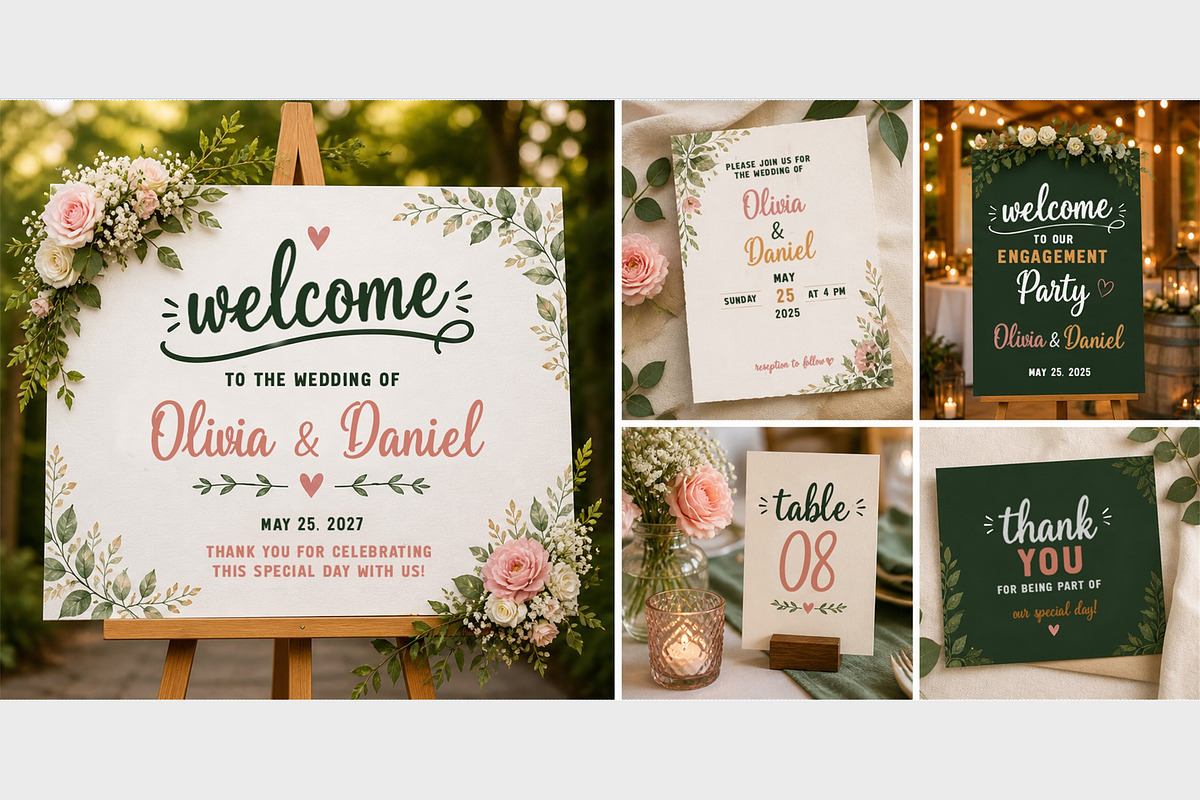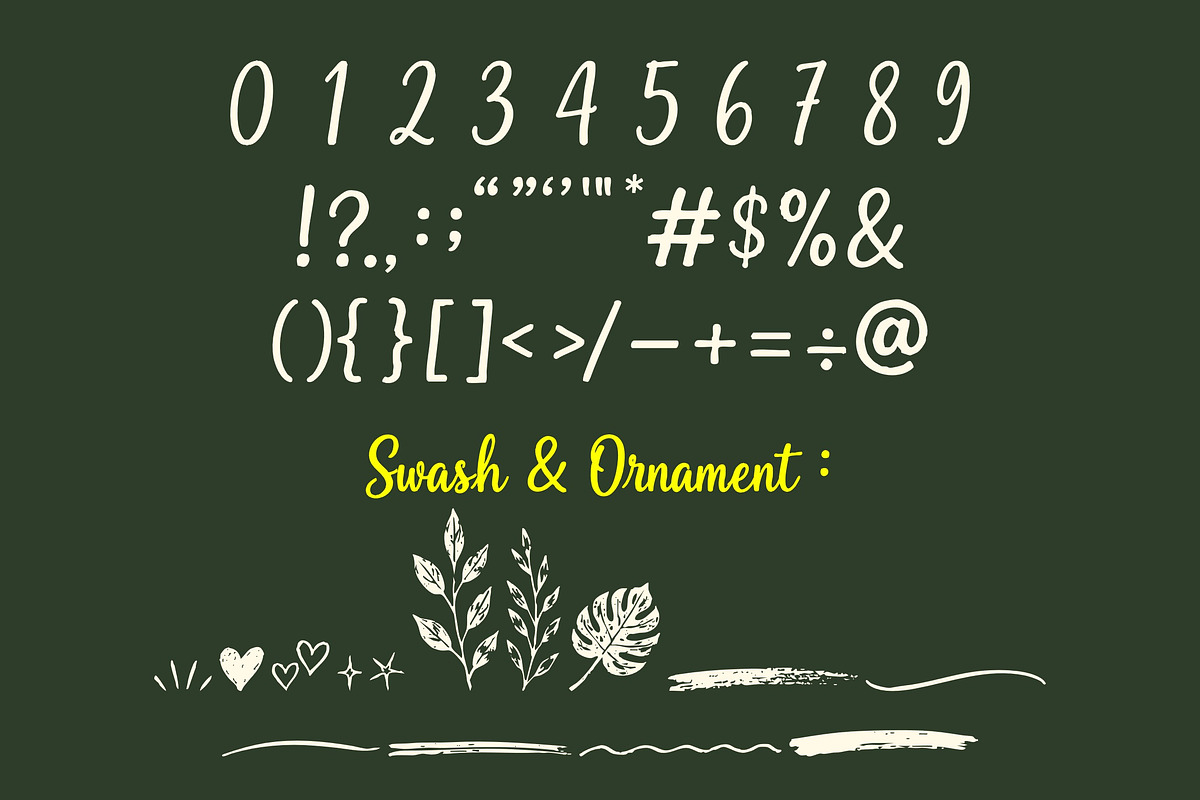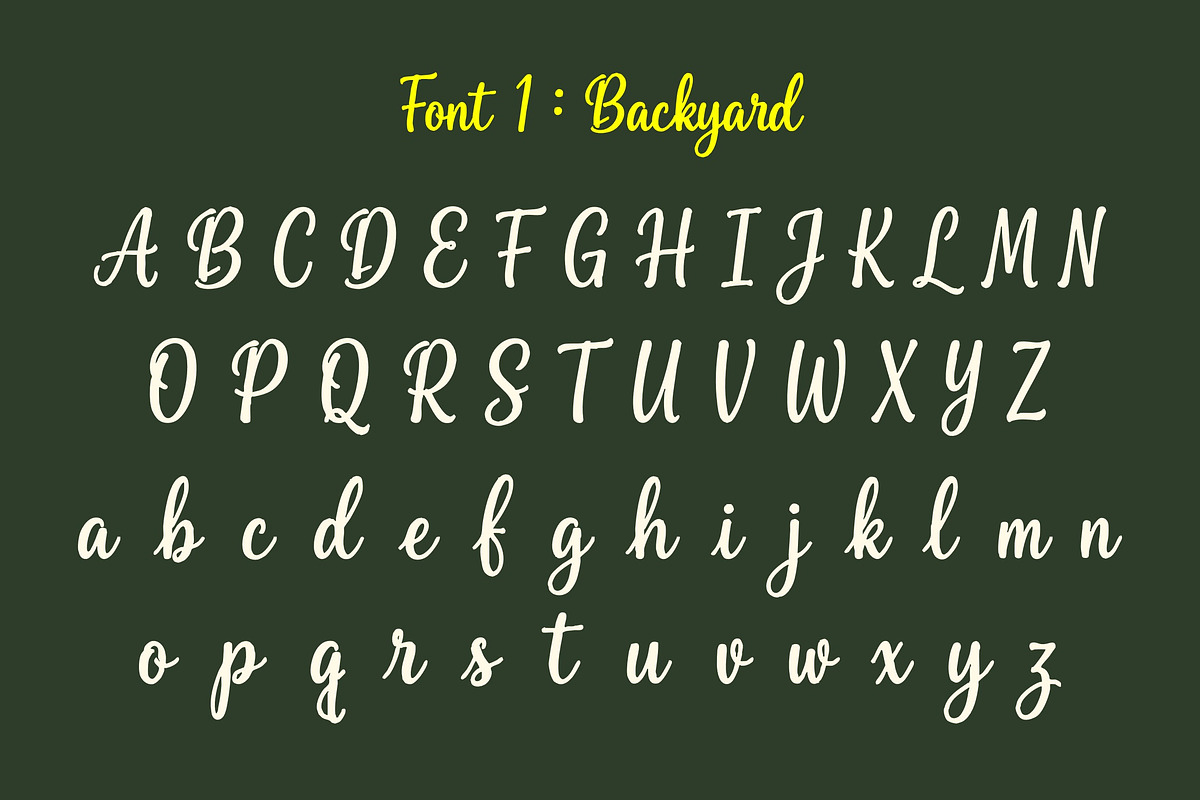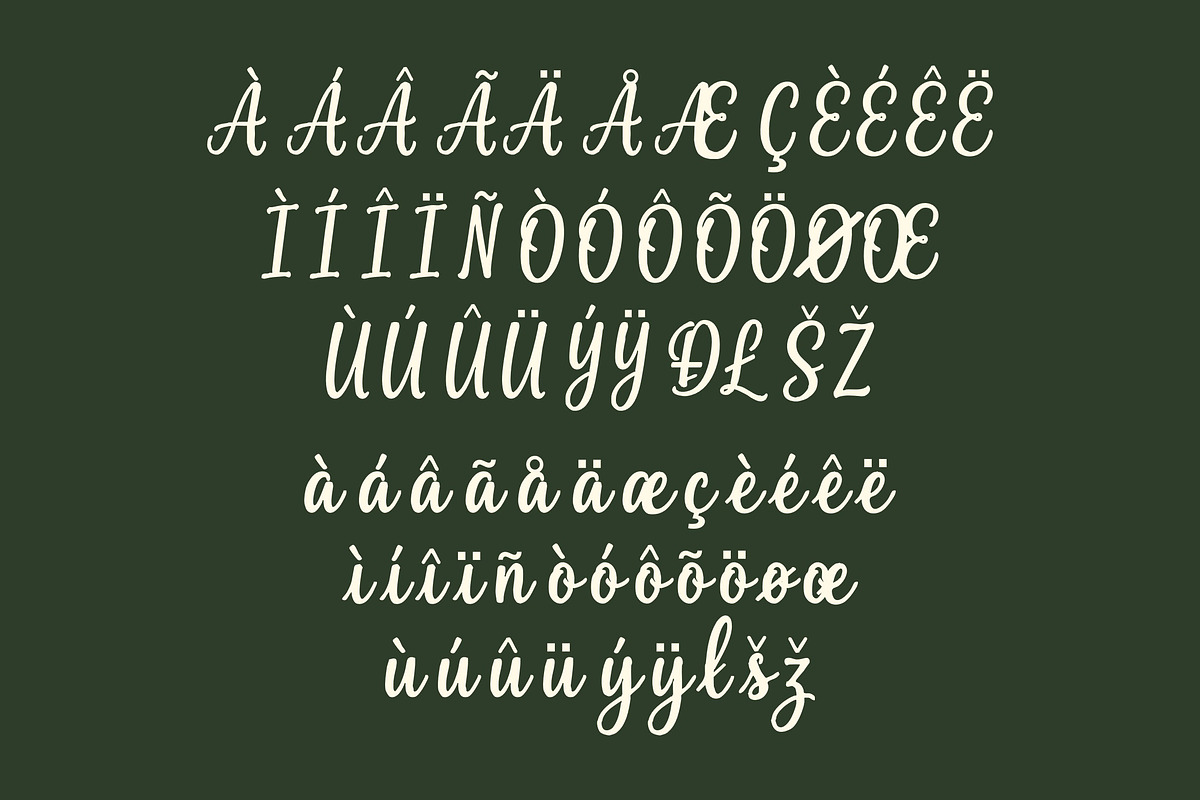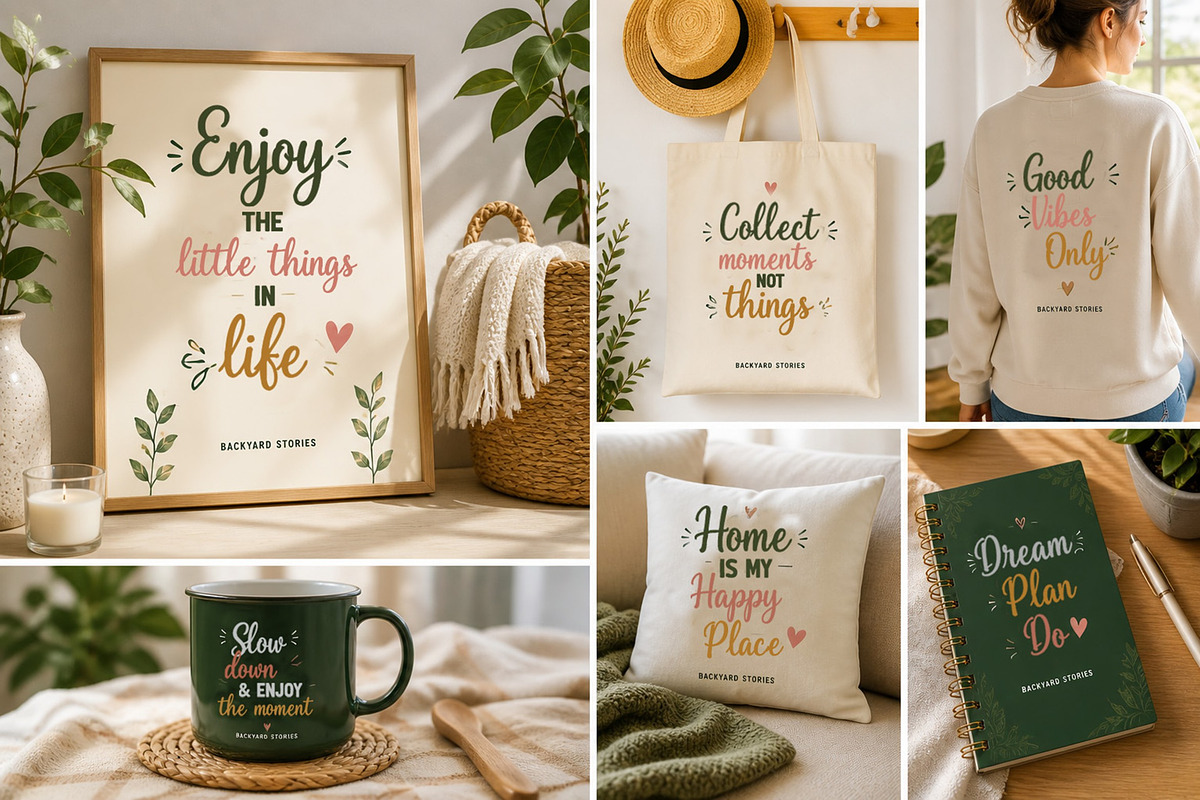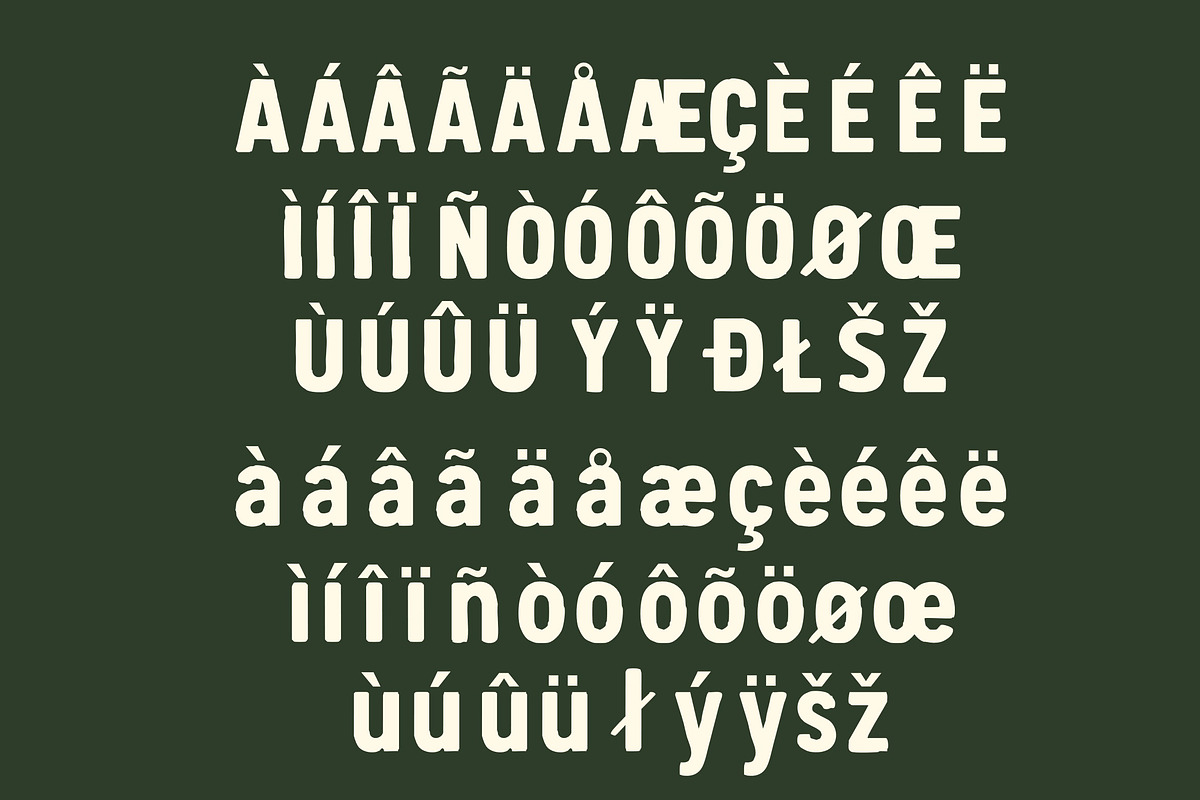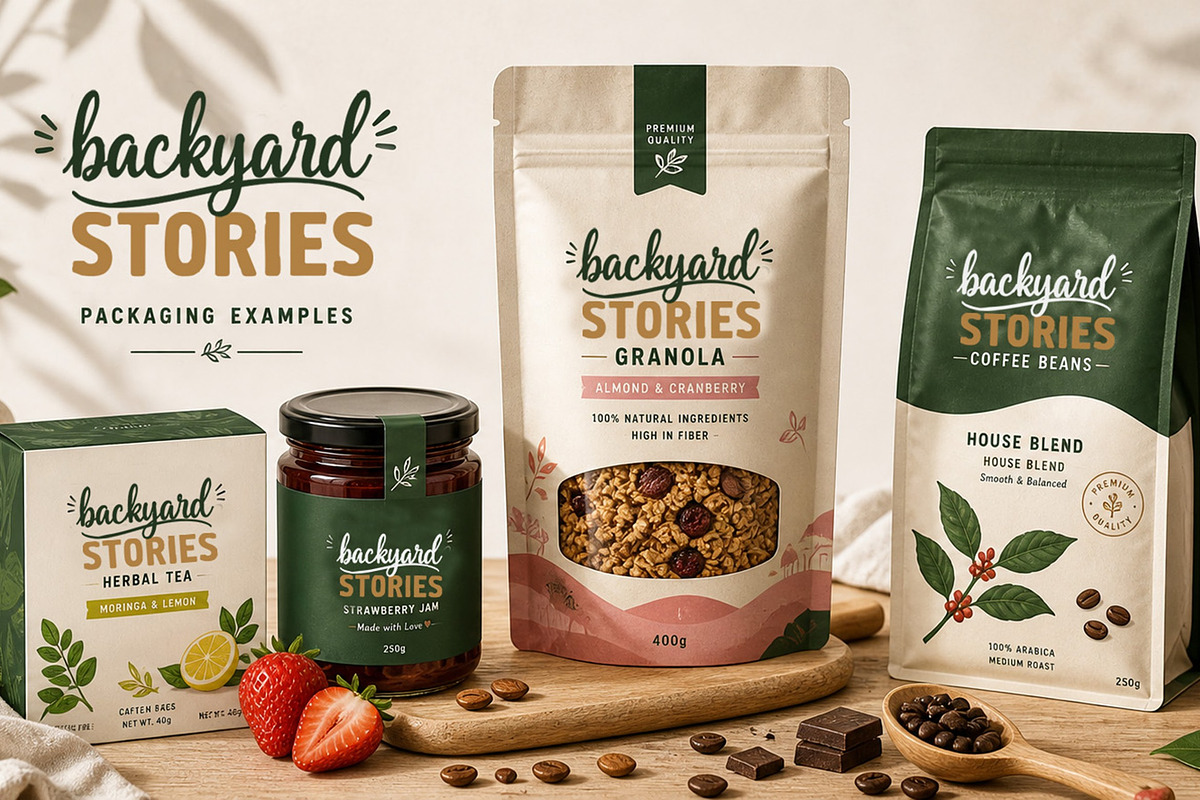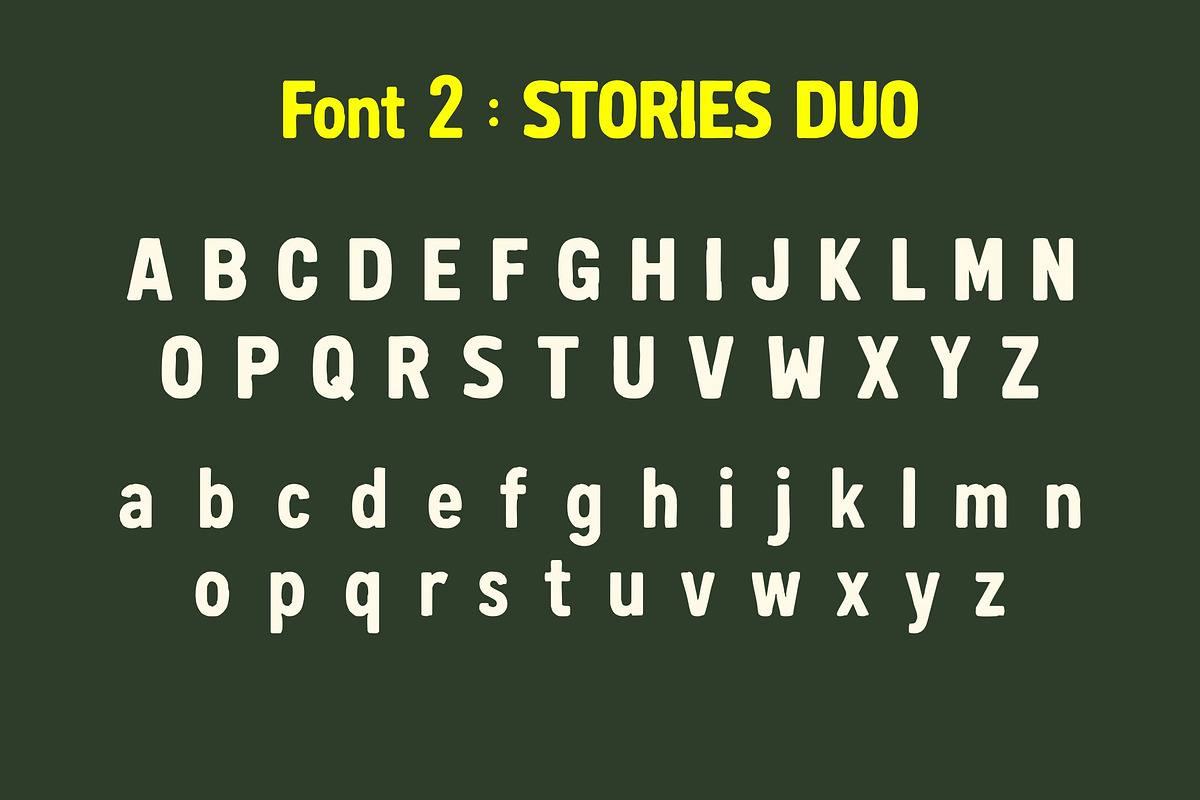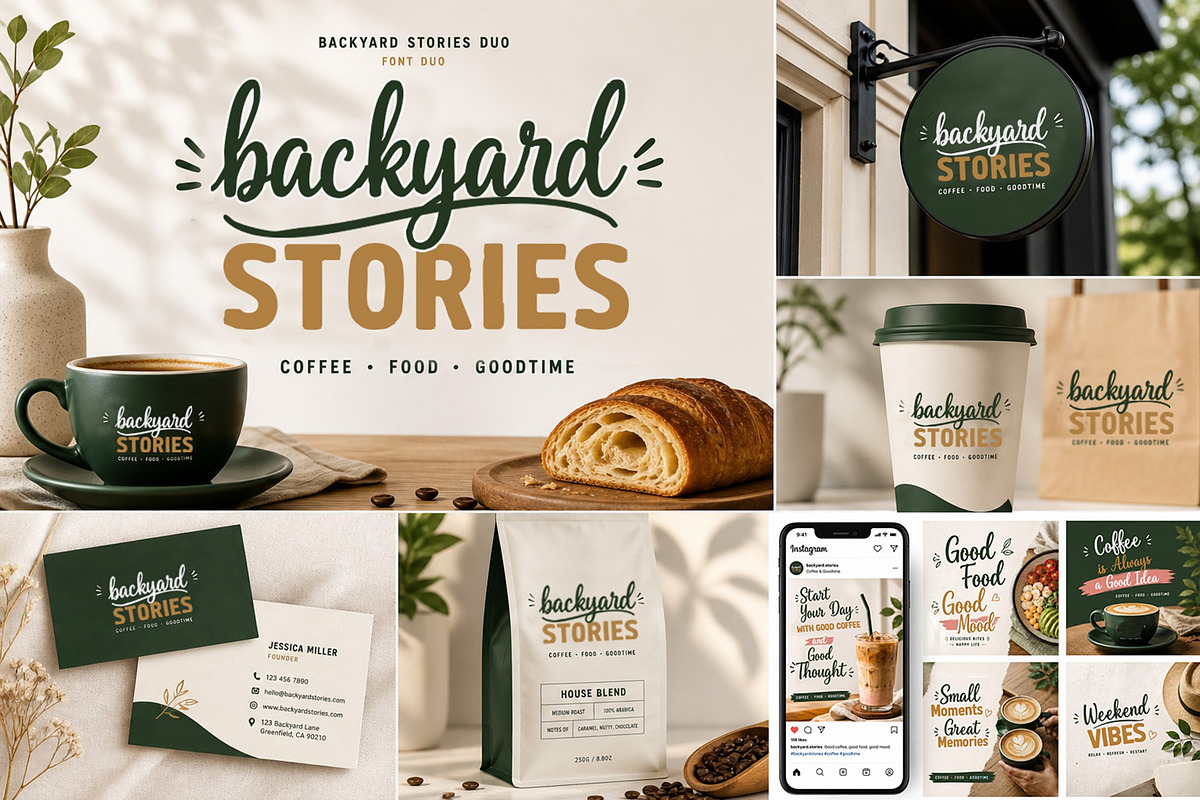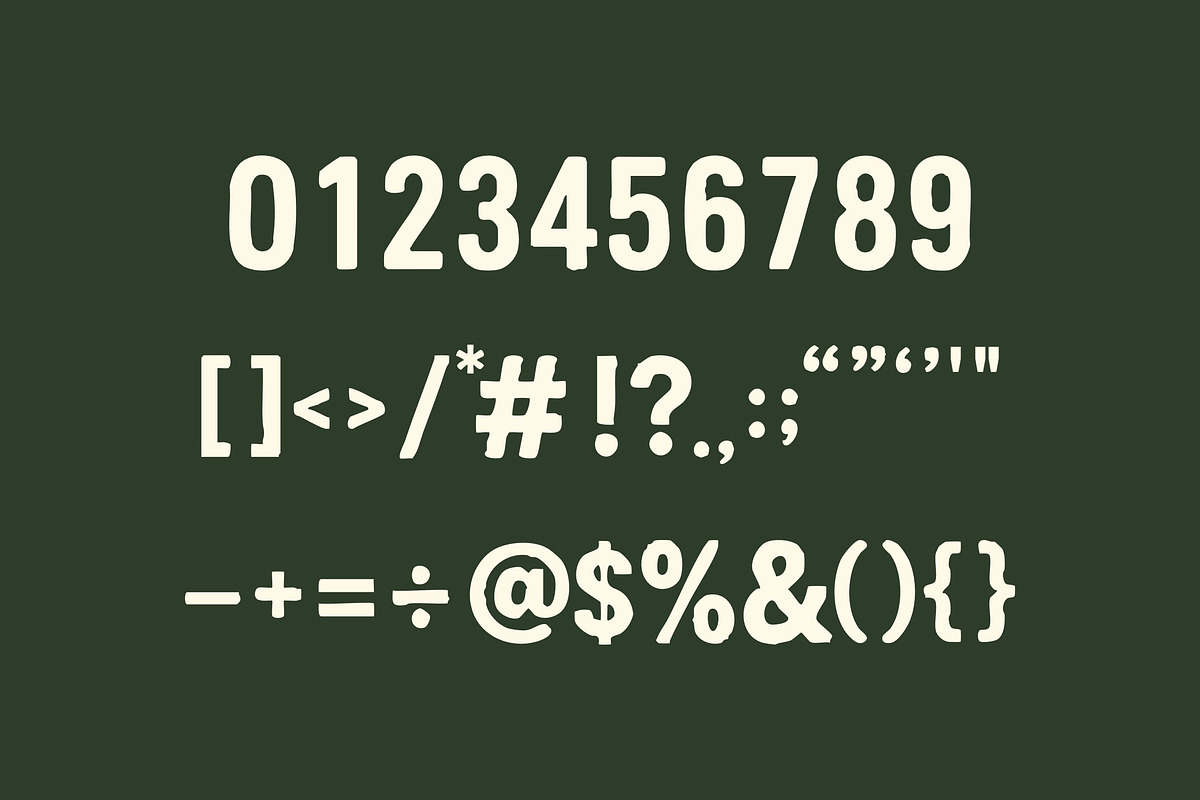
Backyard Stories Duo
Backyard Stories Duo is a handcrafted font pairing that combines a smooth, expressive script with a bold, modern sans serif. Designed to create natural contrast and visual hierarchy, this duo brings a perfect balance between playful personality and clean readability.
Ideal for branding, packaging, social media, events, and lifestyle designs, this font duo helps you create eye-catching compositions effortlessly.